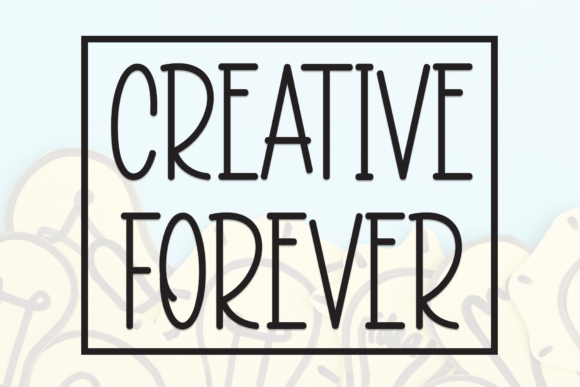
Introducing Creative Forever Font: The Perfect Blend of Clarity and Relaxed Vibes
In the world of typography, fonts play a crucial role in conveying the tone and personality of a brand or design. With countless options available, finding the perfect font that balances style and readability can be a daunting task. However, if you’re looking for a font that exudes a modern yet laid-back vibe, look no further than Creative Forever Font. In this article, we’ll dive into the world of Creative Forever, exploring its features, benefits, and uses, and why it’s the ideal choice for your next design project.
What is Creative Forever Font?
Creative Forever is a neat and casual display font that blends clarity with a relaxed, approachable vibe. Its clean lines and friendly letterforms make it perfect for headlines, posters, packaging, and branding that aims to feel modern yet laid-back. With a balanced structure and playful energy, it brings personality to any project without overwhelming the message.
Key Features of Creative Forever Font
- Clean Lines: Creative Forever boasts clean lines that give it a crisp and modern look, making it perfect for designs that require a touch of sophistication.
- Balanced Structure: The font’s balanced structure ensures that it’s easy to read, even at larger sizes, making it ideal for headlines and titles.
- Playful Energy: Despite its clean lines, Creative Forever has a playful energy that adds a touch of personality to any design.
- Friendly Letterforms: The font’s friendly letterforms make it approachable and relaxed, perfect for designs that require a laid-back vibe.
Use Cases for Creative Forever Font
Creative Forever is a versatile font that can be used in a variety of design projects, including:
- Headlines and Titles: The font’s clean lines and balanced structure make it perfect for headlines and titles that require a modern yet laid-back look.
- Posters and Flyers: Creative Forever’s playful energy and friendly letterforms make it ideal for posters and flyers that require a touch of personality.
- Packaging: The font’s clean lines and modern look make it perfect for packaging designs that require a touch of sophistication.
- Branding: Creative Forever’s relaxed vibe and approachable letterforms make it ideal for branding projects that require a laid-back yet modern look.
Benefits of Using Creative Forever Font
So, why choose Creative Forever Font for your next design project? Here are just a few benefits of using this versatile font:
- Improved Readability: Creative Forever’s balanced structure and clean lines ensure that your text is easy to read, even at larger sizes.
- Unique Personality: The font’s playful energy and friendly letterforms add a touch of personality to any design, setting it apart from more traditional fonts.
- Versatility: Creative Forever can be used in a variety of design projects, from headlines and titles to posters and packaging.
- Modern yet Laid-Back: The font’s modern look and relaxed vibe make it perfect for designs that require a touch of sophistication and approachability.
Tips for Using Creative Forever Font
To get the most out of Creative Forever Font, here are a few tips to keep in mind:
- Use it as a Display Font: Creative Forever is designed as a display font, so use it to add a touch of personality to your headlines and titles.
- Experiment with Sizes: The font’s balanced structure ensures that it’s easy to read, even at larger sizes, so don’t be afraid to experiment with different sizes.
- Pair it with Other Fonts: Creative Forever can be paired with other fonts to create a unique look, so don’t be afraid to experiment with different font combinations.
In conclusion, Creative Forever Font is a versatile and stylish font that’s perfect for designs that require a modern yet laid-back vibe. With its clean lines, balanced structure, and playful energy, it’s ideal for headlines, posters, packaging, and branding projects. Whether you’re a designer, marketer, or entrepreneur, Creative Forever Font is a great choice for any project that requires a touch of personality and sophistication.